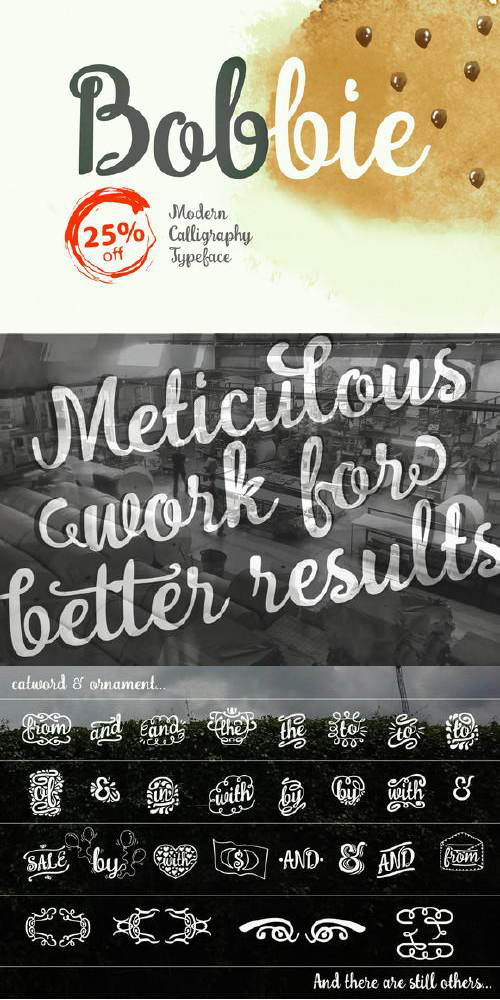
Bobbie Font
Bobbie is the modern calligraphy typography with personality. Designed as a display font that contains 576 glyphs in total and 140 characters an alternative as well as 87 's for save catwordornament enhance your design. You can use it as a logo, tattoo, badges, emblems, titles, posters, Packaging, t-shirts/clothing, greeting cards, and wedding invitations, etc. Character is ideal for creating interesting, mix and match Bobbie with a bunch of alternative spellings to suit your project. Alternate characters in these fonts OpenType features are divided into several alternative styles, the style set and Binder. OpenType features are accessible using OpenType savvy programs like Adobe Illustrator and Adobe InDesign.